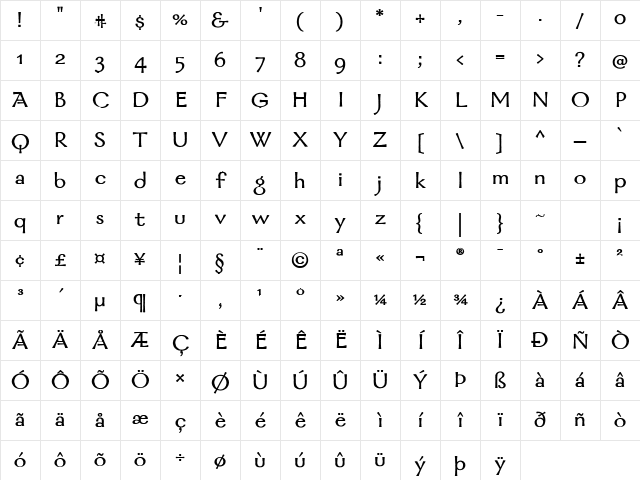
Mordred Bold Free Font
Mordred Bold
Design Context for Mordred
Mordred is a composed and adaptable typeface that performs quietly and consistently across a wide range of design contexts. Its bold stroke weight gives it real presence on the page.